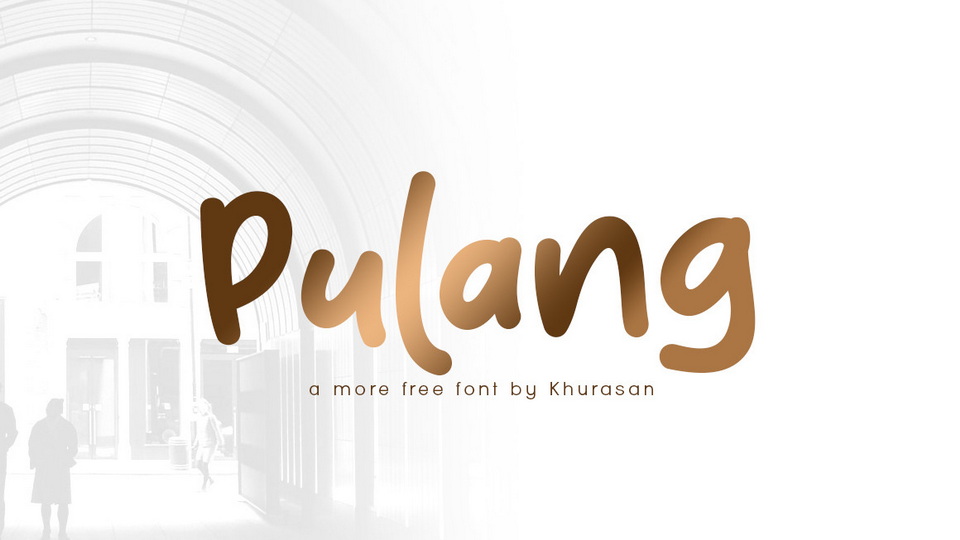
Download Pulang font, a simple and casual handwritten typeface. Pulang font is perfect for posters, logos, magazines, cover books, banners, and much more.